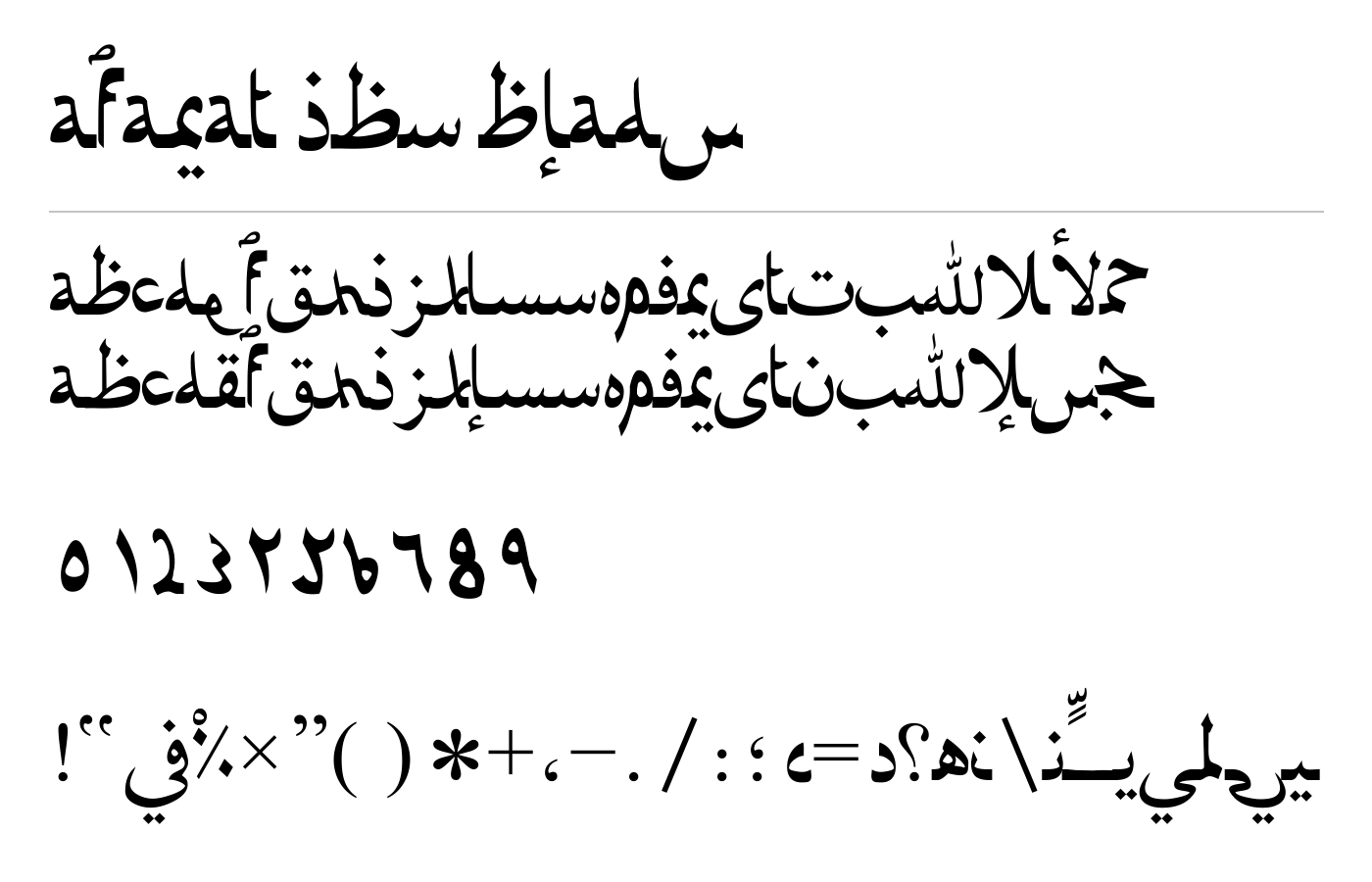
Afarat ibn Blady is a distinctive serif font that combines sharp, calligraphic strokes with a moderate contrast between thick and thin lines, creating a dynamic and expressive feel. Its unique letterforms, blending Latin and Arabic styles, offer a creative and somewhat traditional appearance, making it ideal for cultural projects, artistic branding, or headlines that seek a blend of elegance and individuality. This font stands out in designs that require a touch of heritage mixed with modern flair, working well for editorial, packaging, and fashion contexts where uniqueness and style are key.
Afarat ibn Blady Font
About Afarat ibn Blady Font
| Font family | Afarat ibn Blady Font |
| Designer | bartek nowak |